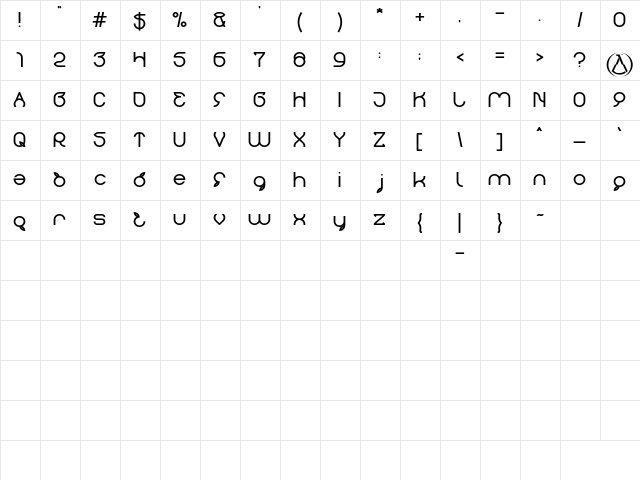
thefotosintesis Bold
Design Context for thefotosintesis Typeface
thefotosintesis is a composed and adaptable typeface that performs quietly and consistently across a wide range of design contexts. Its bold stroke weight gives it real presence on the page.